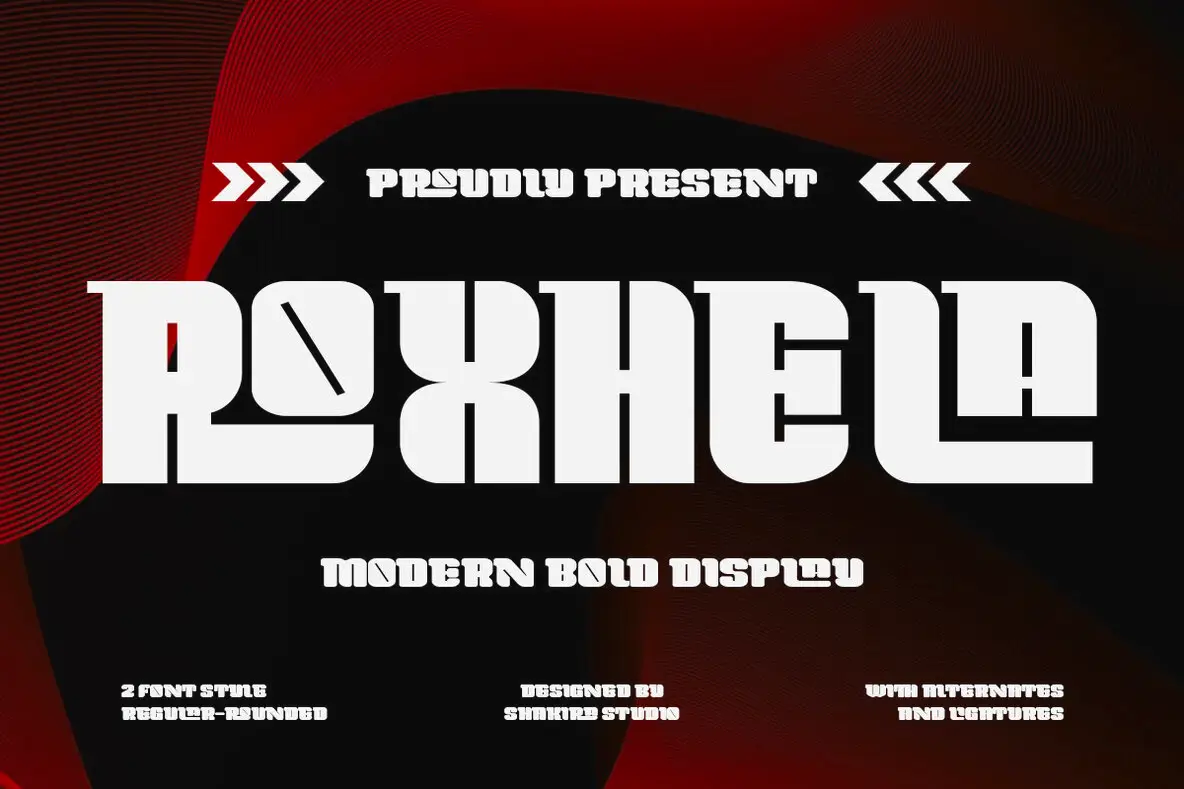
Roxhela Font
Roxhela Regular
Roxhela Rounded
Roxhela is a commanding modern display font that skillfully merges bold aesthetics with versatile functionality. Designed for creating striking logos, memorable branding, and eye-catching packaging, Roxhela offers both regular and rounded versions with dynamic alternates and ligatures to ensure your designs stand out. With assertive character shapes and a contemporary rounded option, Roxhela provides unmatched flexibility for brands seeking impact and approachability. The precision-crafted alternates and ligatures enable designers to craft distinctive wordmarks that exhibit perfect letter harmony. Roxhela is perfect for tech startups, sports or energy logos, product packaging that commands attention, music festival promotions, and editorial headline typography. Available now, it’s designed to leave a confident mark.Roxhela: A Modern Bold Display Font for Impactful Branding
Where Bold Modernism Meets Strategic Versatility